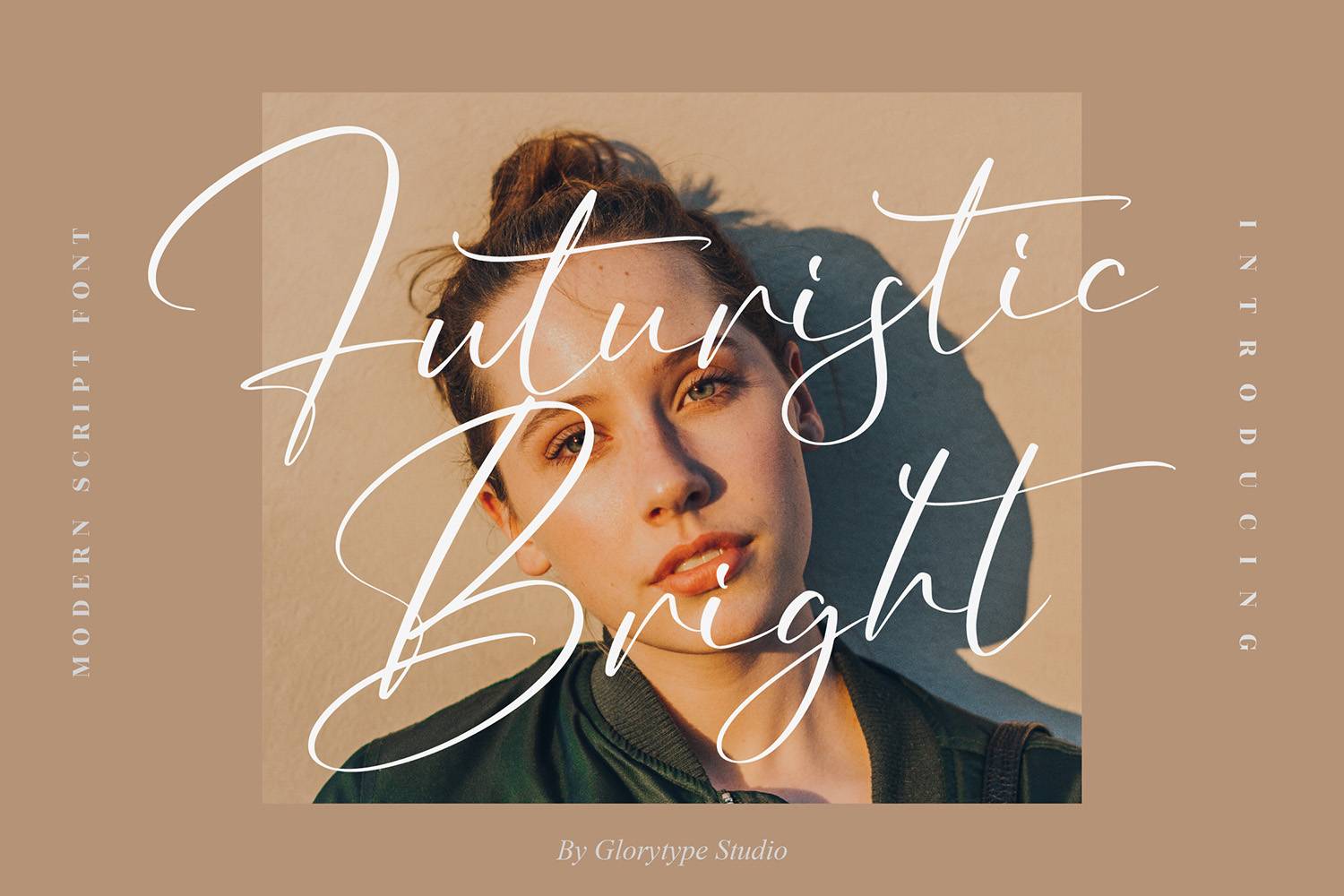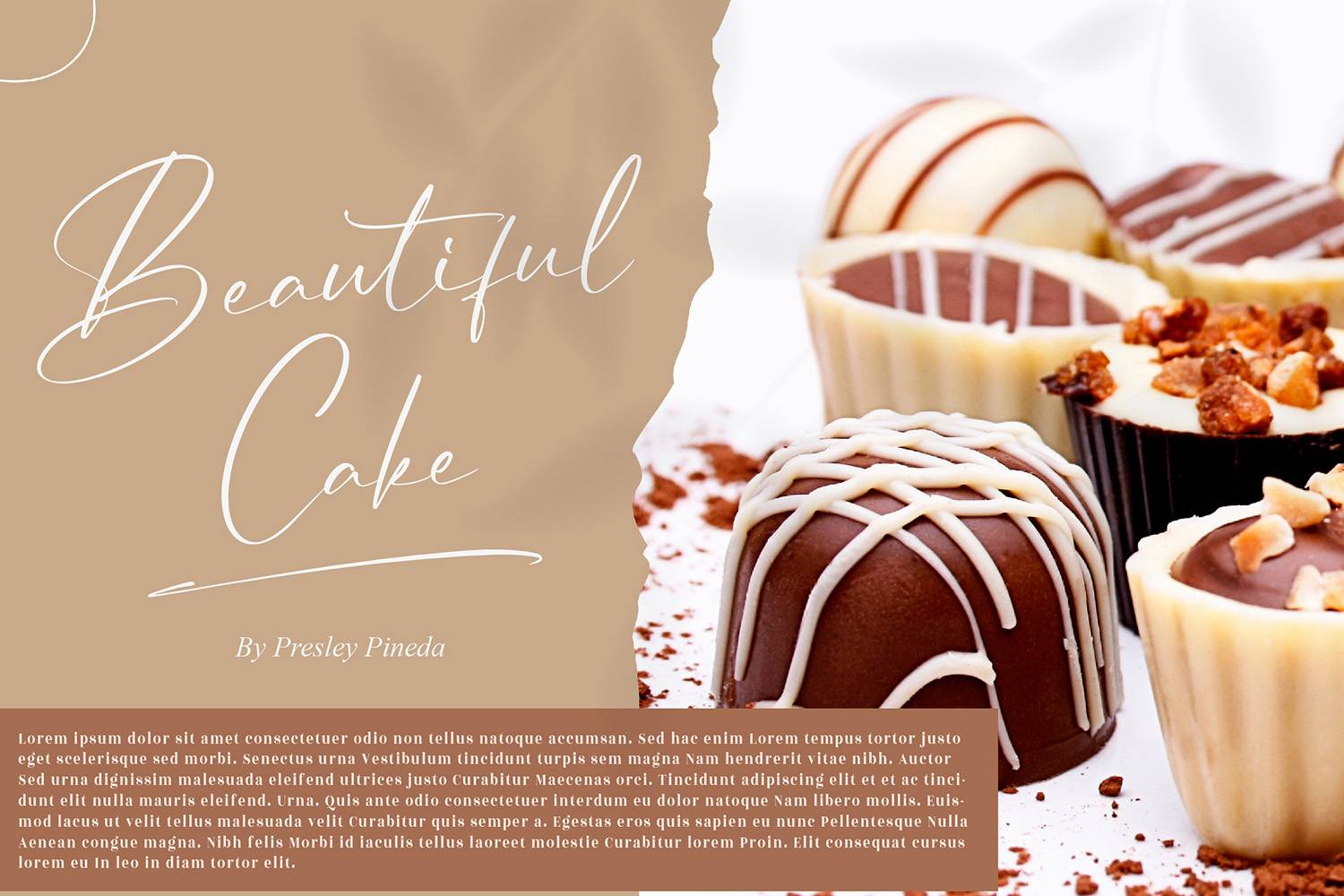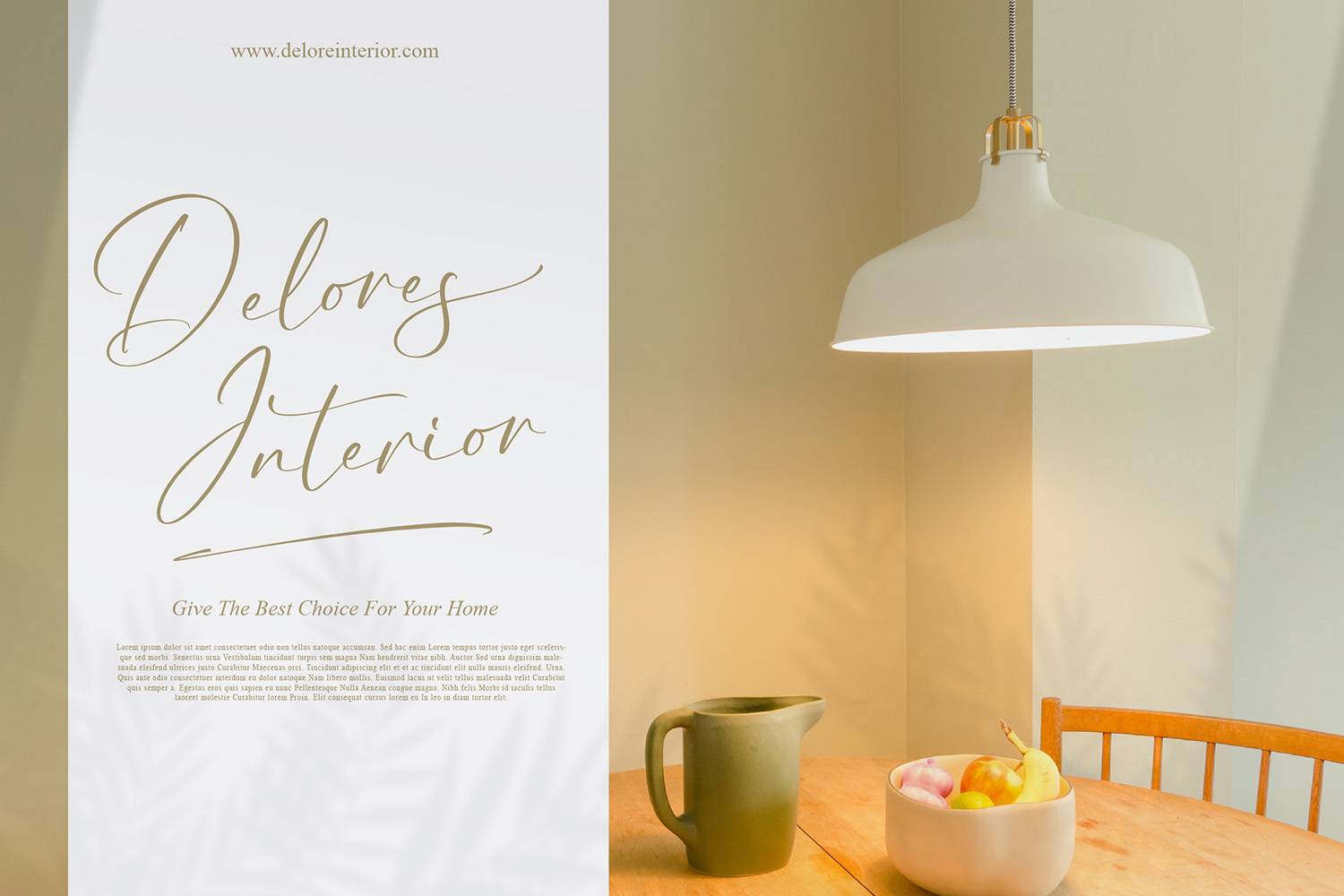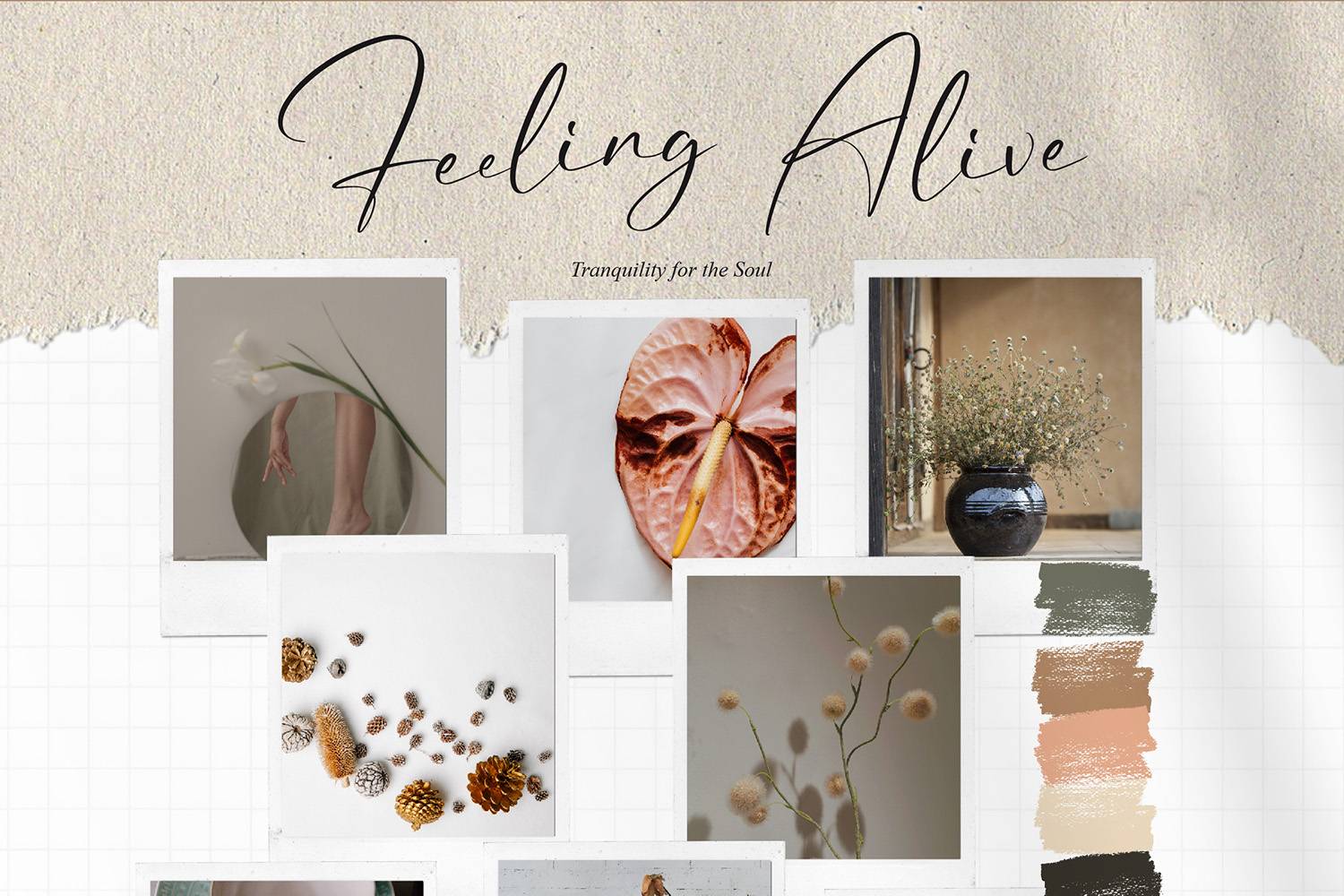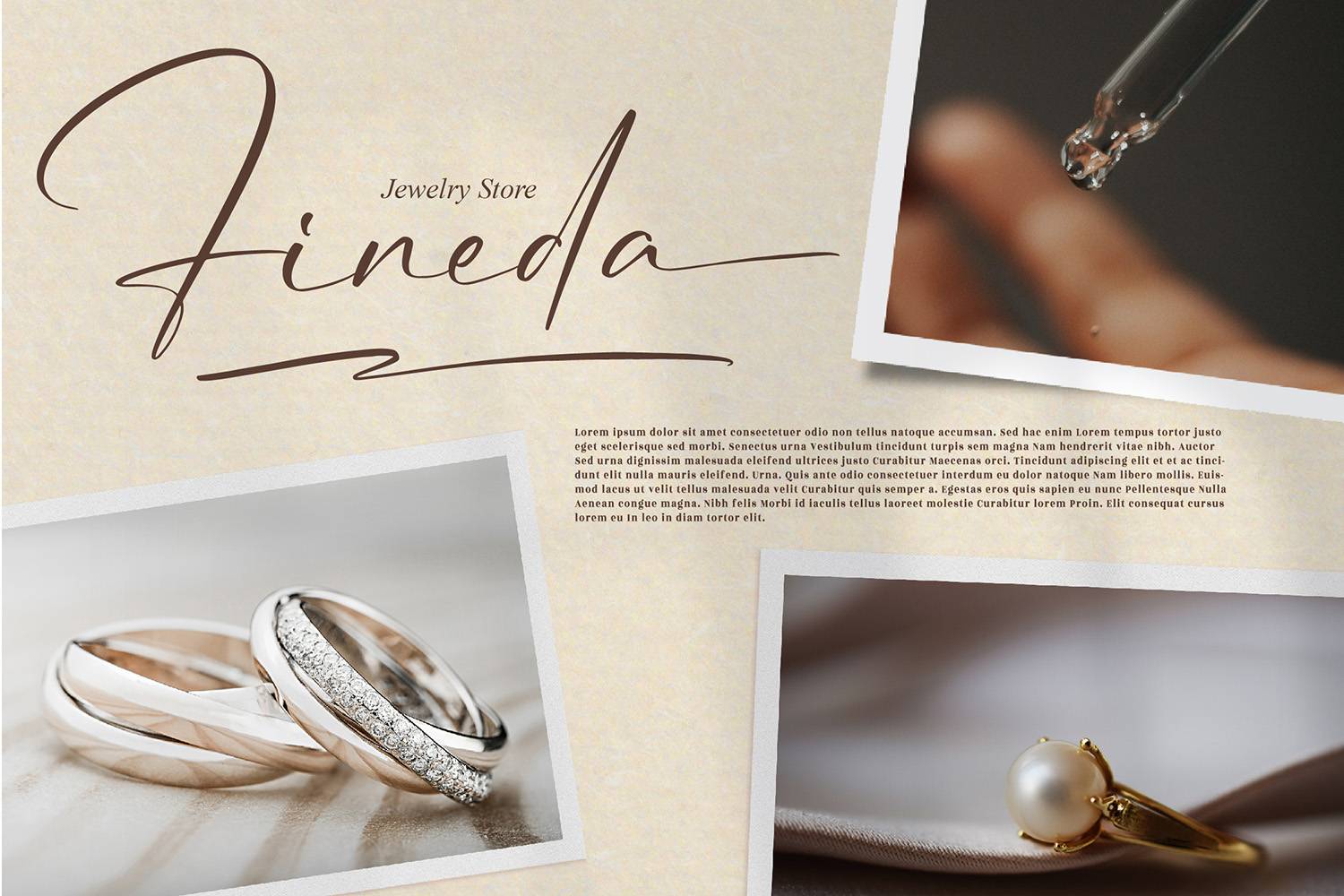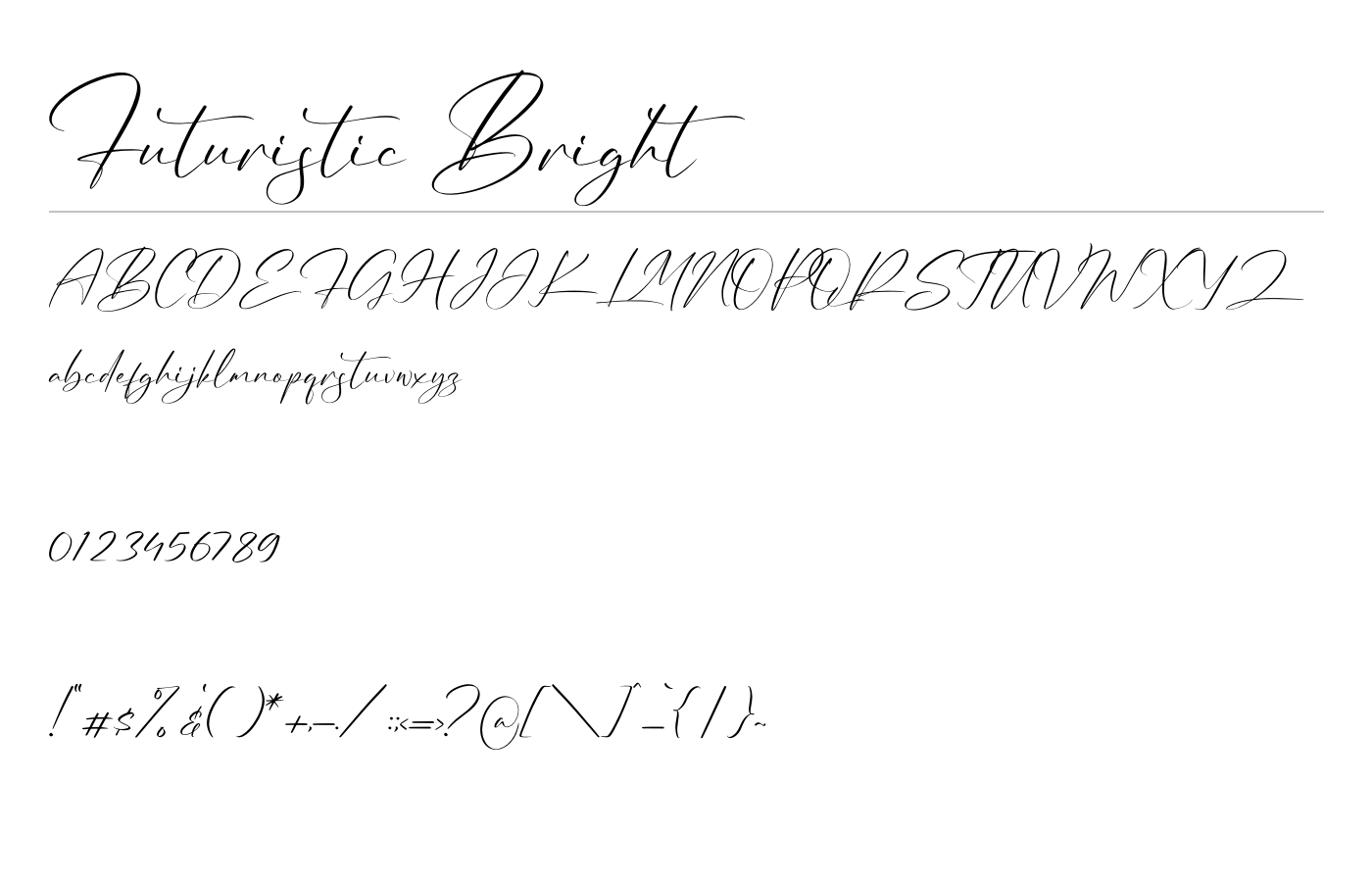
Futuristic Bright is an elegant and delicate script font characterized by thin, flowing strokes and a handwritten feel. Its slender letterforms and graceful curves create a refined and airy appearance, making it ideal for luxury branding, invitations, and elegant logos. This font’s sophisticated style adds a modern, stylish touch to designs where a sense of lightness and finesse is desired.
Futuristic Bright Font
About Futuristic Bright Font